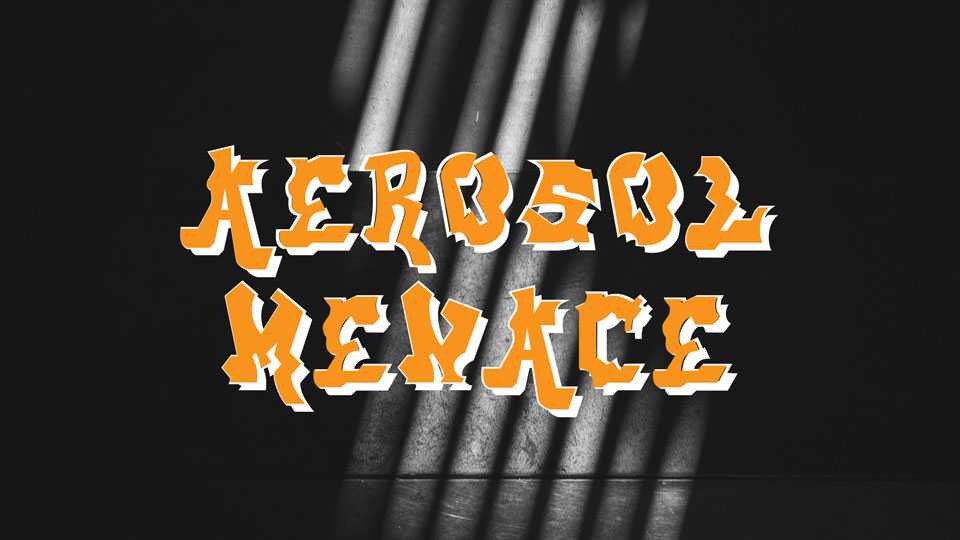
Download Aerosol Menace font, a bold and expressive graffiti typeface that brings the dynamic energy of the streets to your designs. Aerosol Menace font, is a visual representation of the vibrant urban art culture, capturing the raw and unapologetic spirit of graffiti.
Designer: Terrence Curran